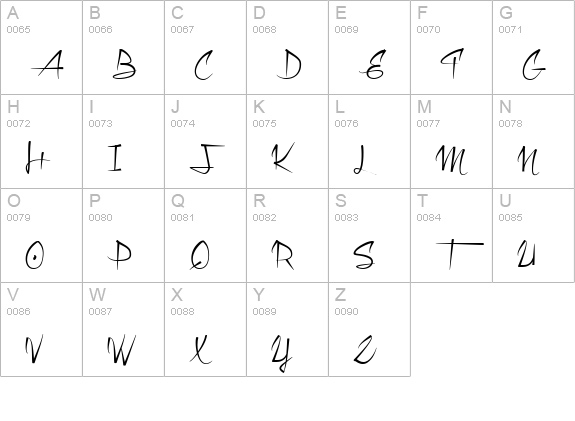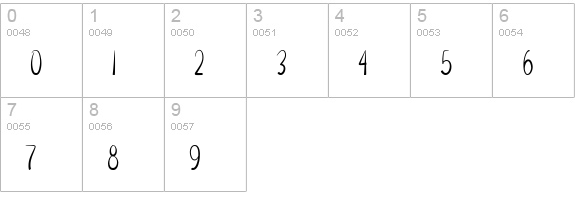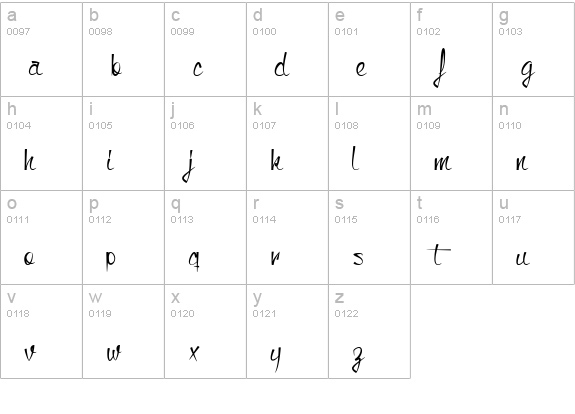
Monkey Snake Font Details
Introducing Monkey Snake Font, a captivating fusion of playfulness and elegance that will bring a unique touch to your creative projects. This versatile font embodies the perfect balance between the wild spirit of a monkey and the sleekness of a snake, creating a visually captivating typeface that will surely make a statement. Monkey Snake Font is carefully crafted with meticulous attention to detail, ensuring that each character maintains its distinctive charm. Its fluid curves and stylish serifs add a touch of sophistication to any design, while its bold strokes and playful angles inject a sense of energy and excitement. Whether you're looking to create eye-catching logos, attention-grabbing headlines, or engaging social media posts, Monkey Snake Font has got you covered. Its versatility allows it to effortlessly adapt to various design styles and contexts, making it suitable for both professional and personal projects. And the best part? Monkey Snake Font is absolutely free! As part of our commitment to providing high-quality resources to the creative community, we are delighted to offer this font as a complimentary download on FontsMarket.com. Now, you can enhance your designs without breaking the bank, giving you the freedom to explore your creativity without limitations. So, why wait? Download Monkey Snake Font today and let your imagination run wild. Unleash the untamed creativity within you and elevate your designs to new heights. Remember, it's free and readily available at FontsMarket.com, your trusted source for premium fonts. Embrace the playful elegance of Monkey Snake Font and watch your designs come to life.